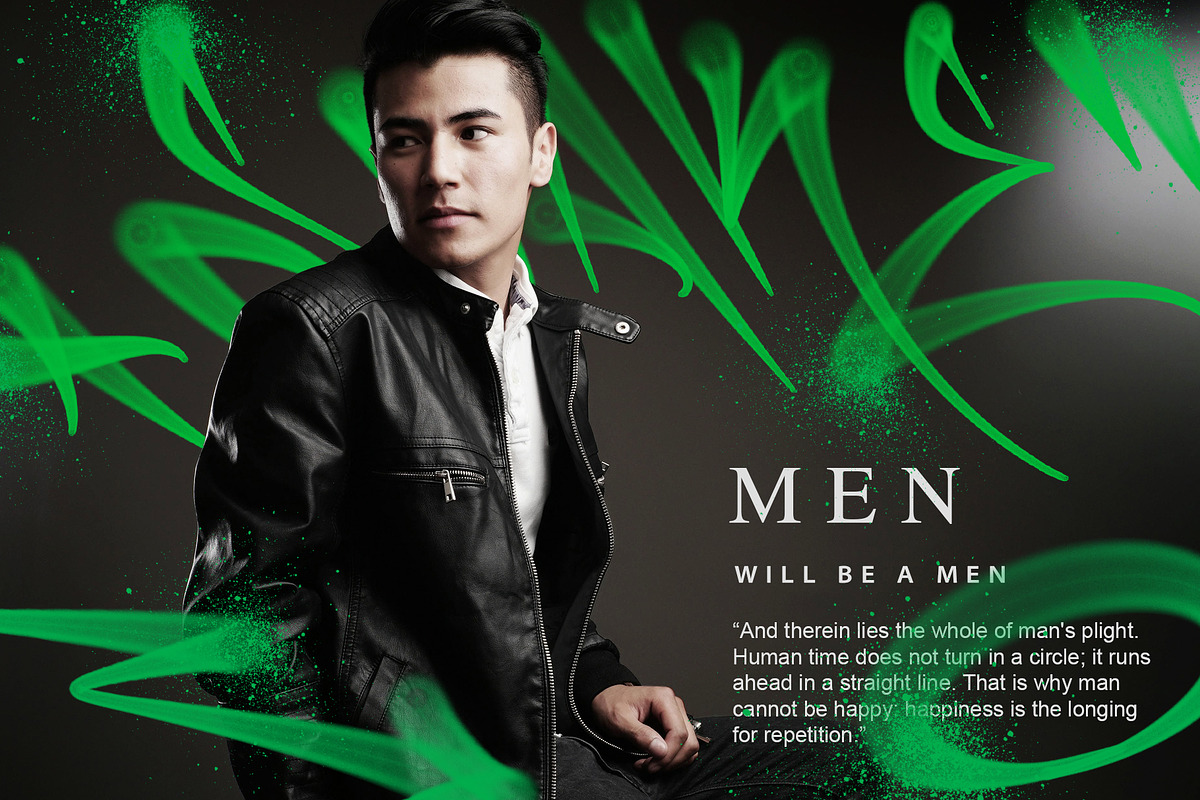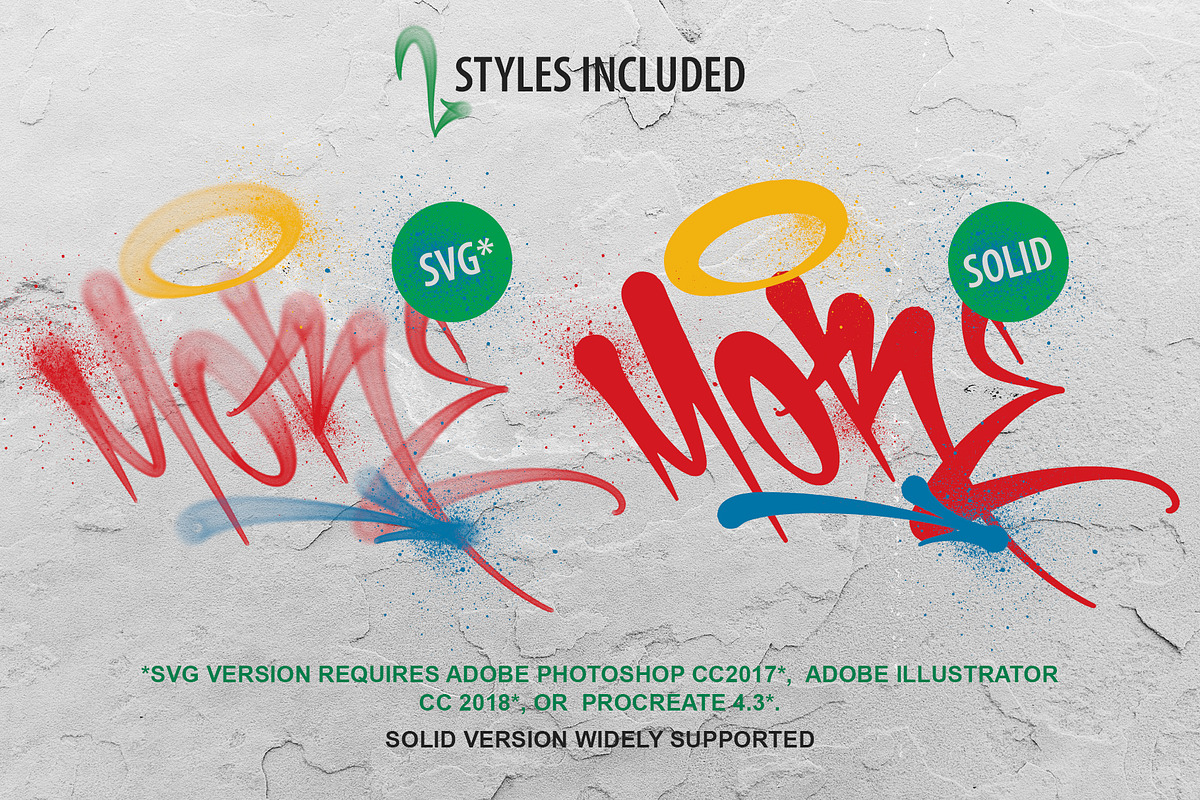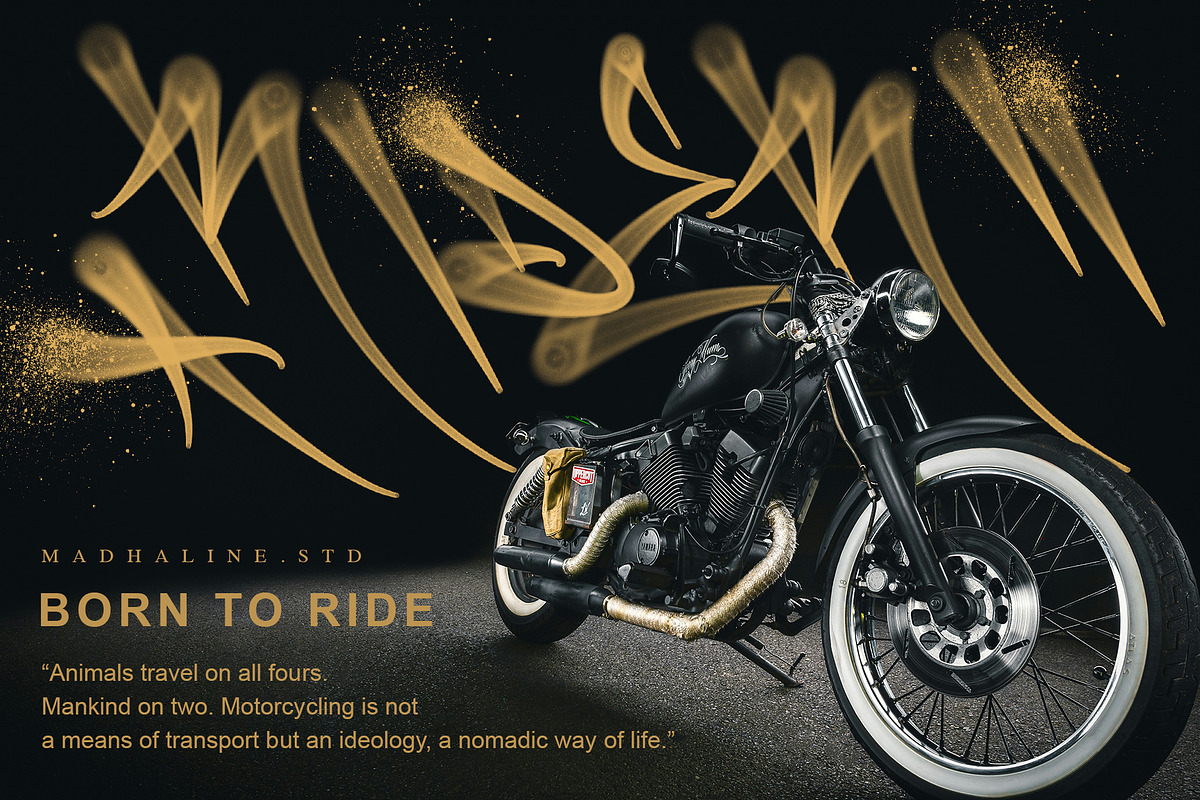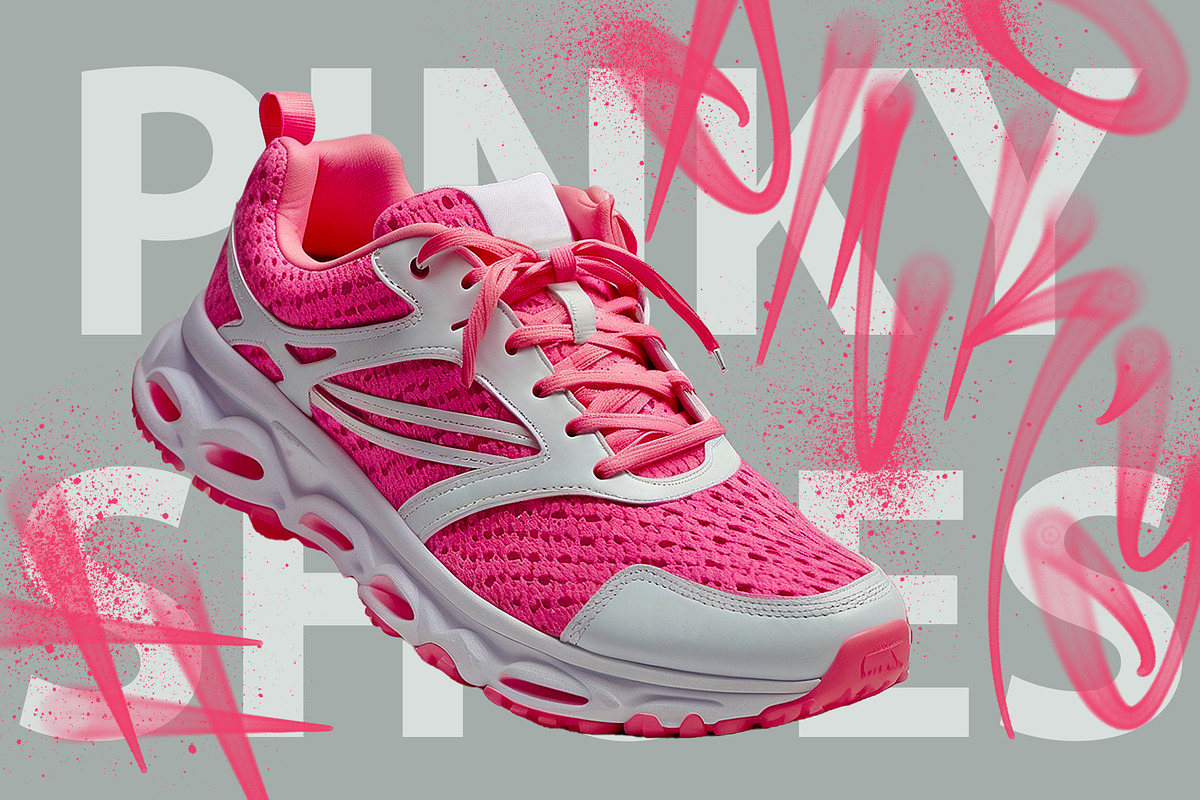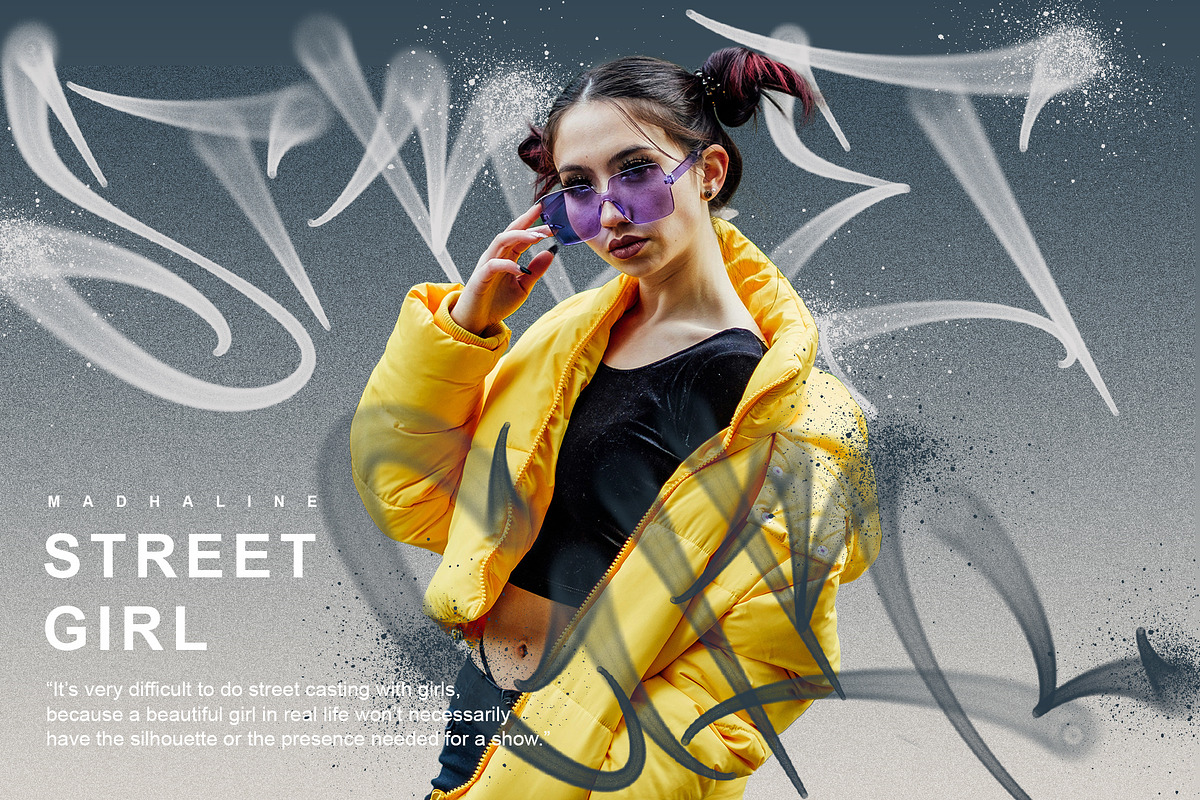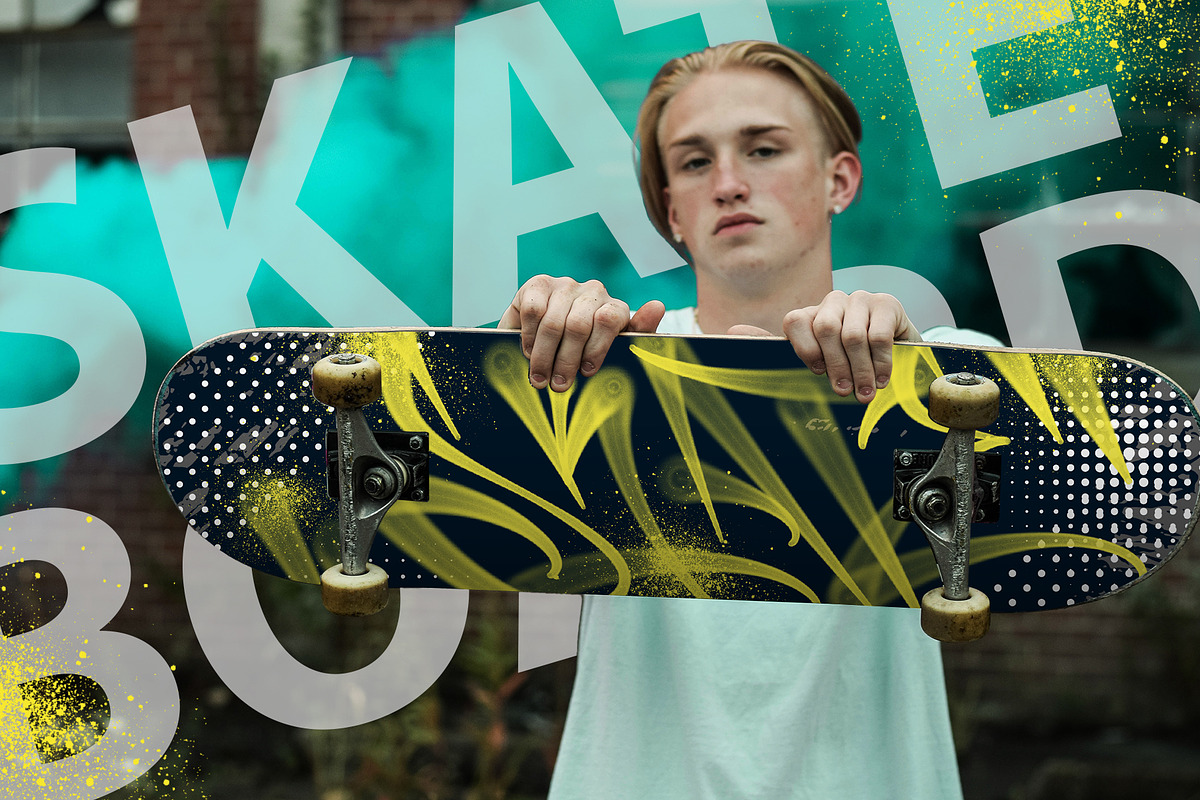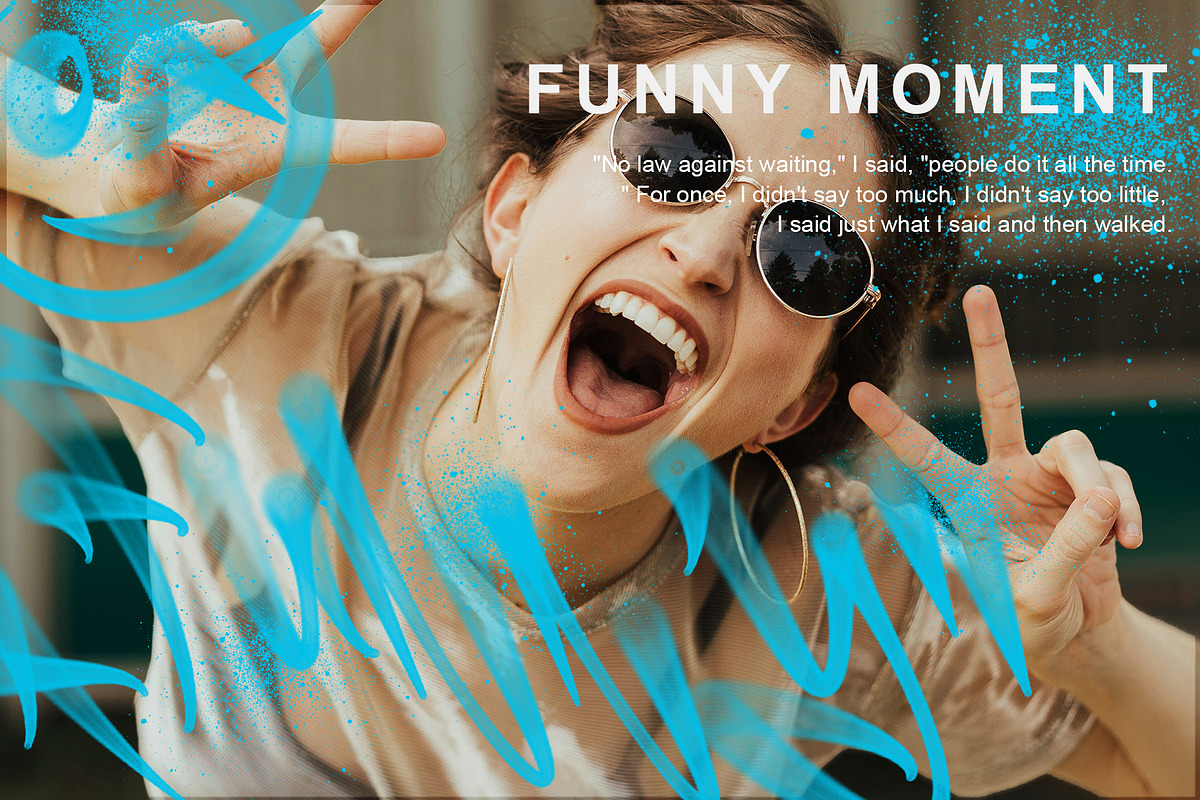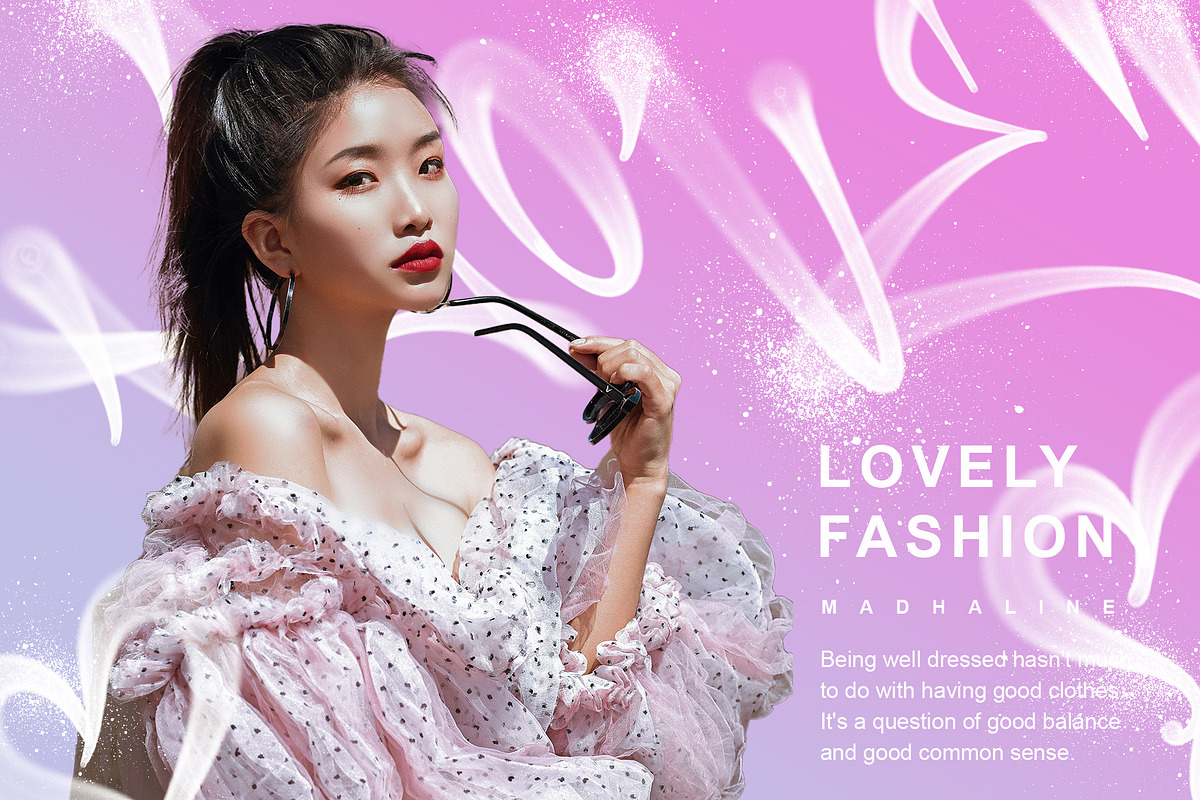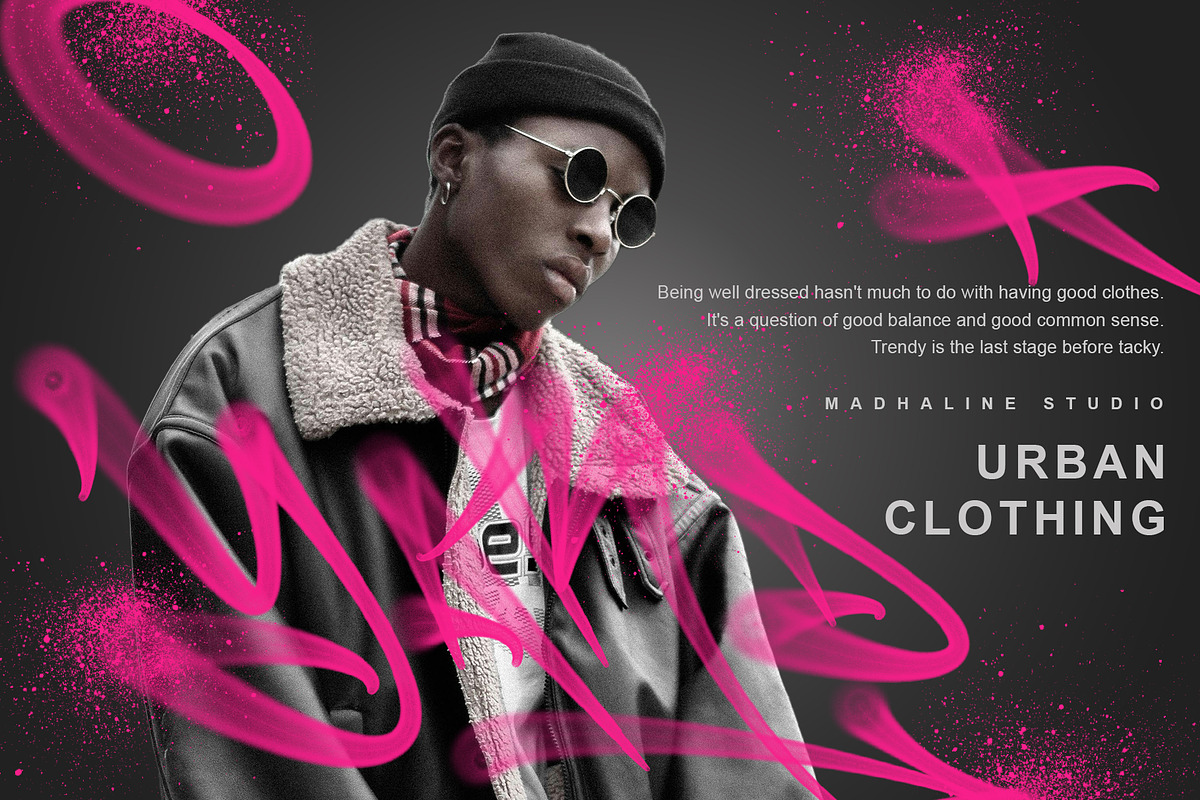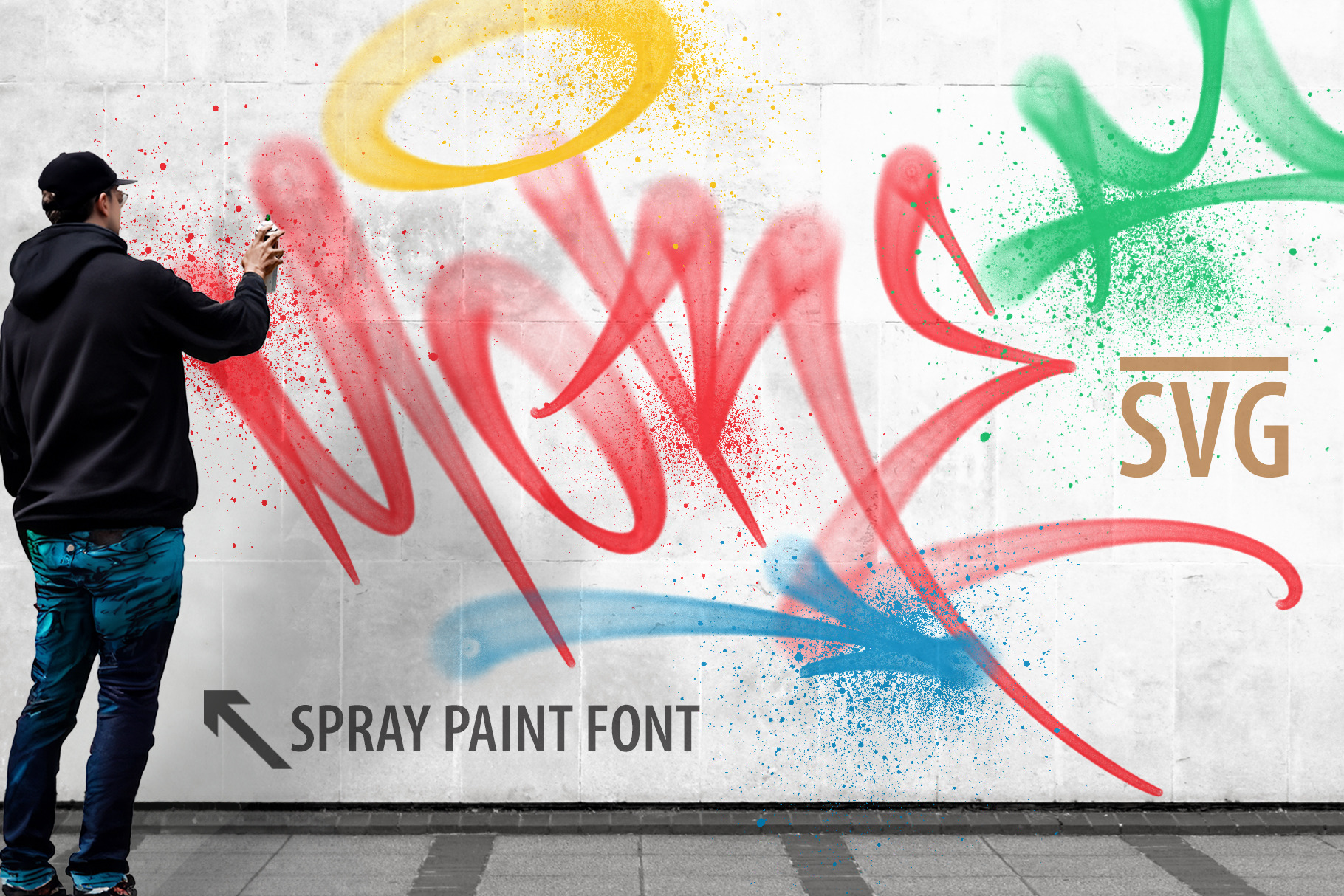
More | Graffiti Spray Paint SVG Font
Want to inject realistic spray-painted graffiti into your typography? It's time to launch (More Font)—a Graffiti Font with capital letters with a realistic spray paint feel in Fat Cap style. Hand-painted with a brush in the Procreate app on an Ipad Pro device, this attractive font set has a very realistic spray paint texture that is completely embedded in the font in the SVG version as a transparency.